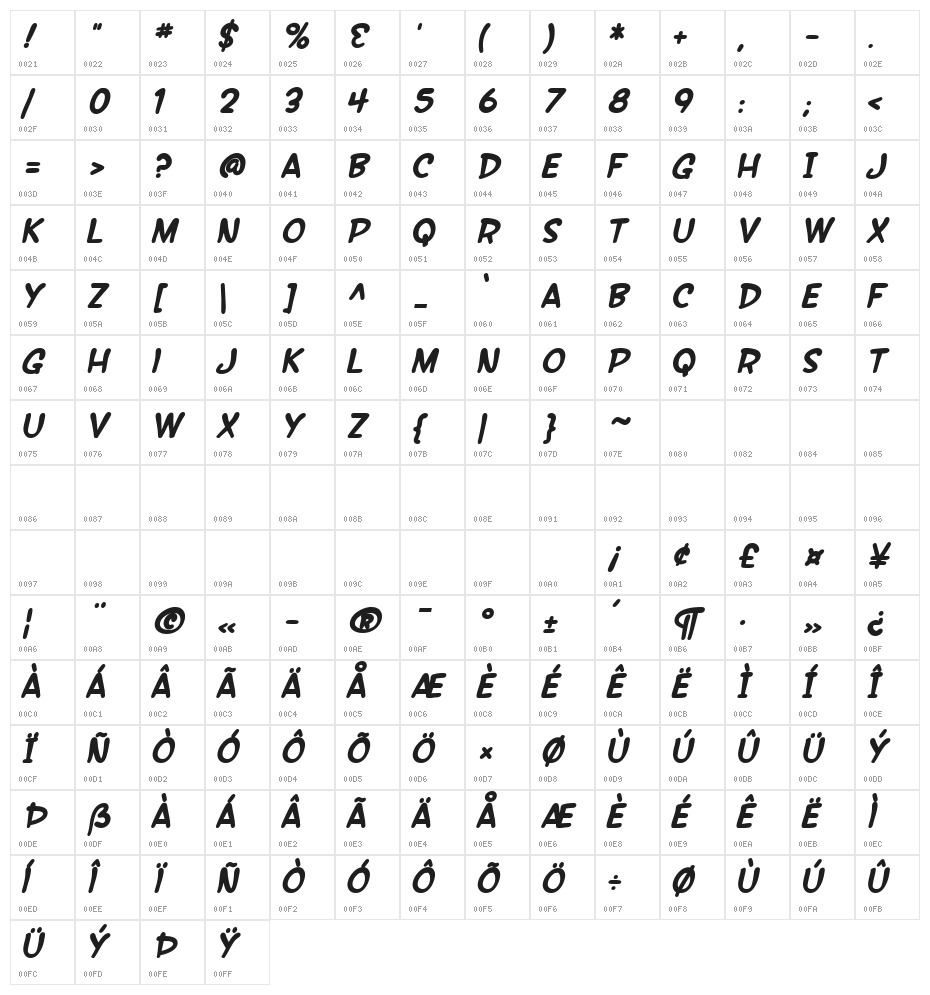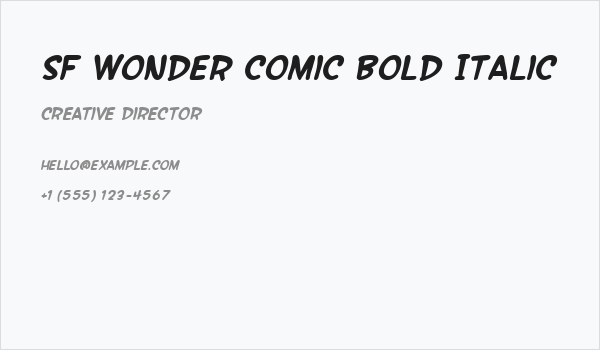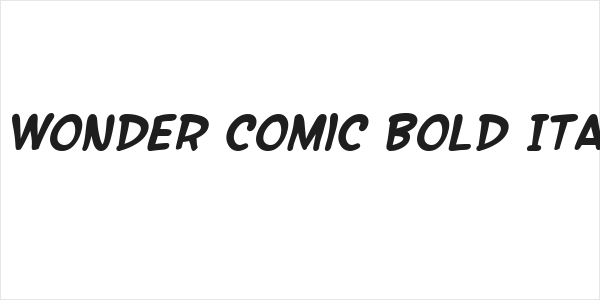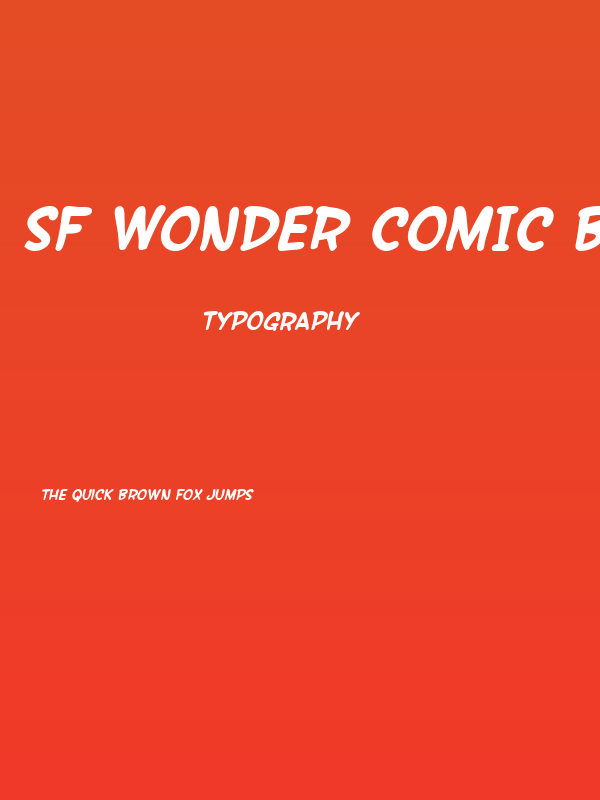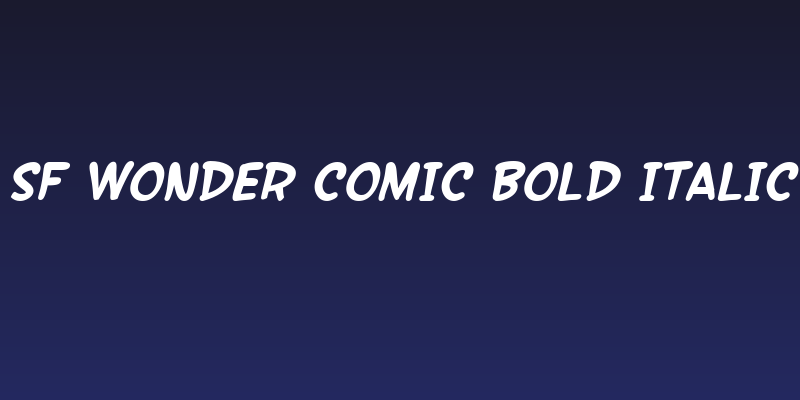
SF Wonder Comic Bold Italic Font
SF Wonder Comic Bold Italic Description
This font features a bold and playful style, characterized by thick, rounded strokes that convey a sense of fun and energy. The letters are slightly italicized, adding a dynamic and informal touch. The uppercase and lowercase letters maintain a consistent weight, ensuring readability while still offering a whimsical appearance. The numbers and special characters are designed to match the overall playful aesthetic, making them suitable for a variety of creative applications. The font's boldness and slight slant give it a comic-like feel, perfect for projects that require a lively and engaging typeface.
| Overall Style | Playful, Comic |
| Proposed Projects | Ideal for comic books, children's books, playful branding, and eye-catching posters. |